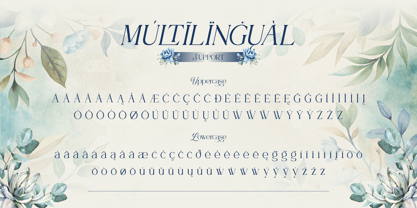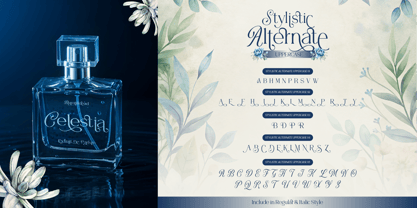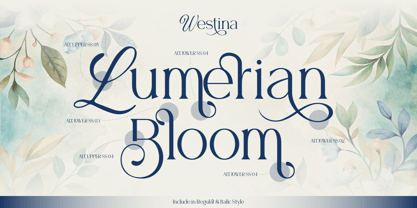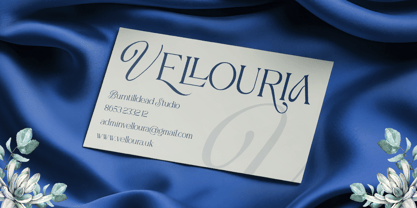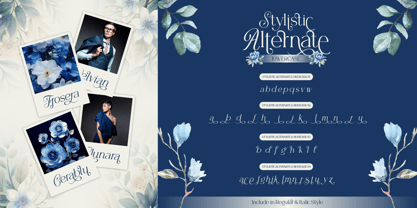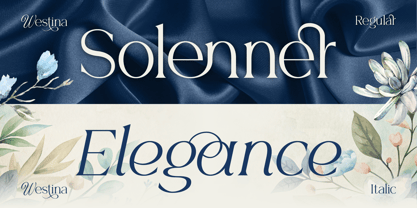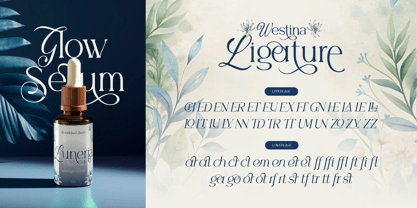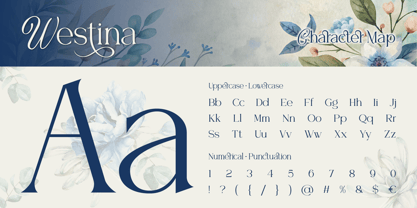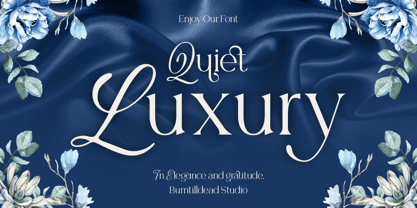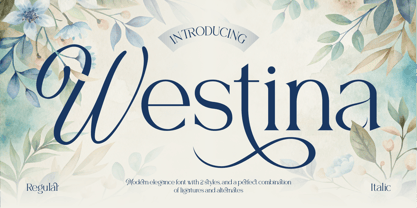
Westina
The Westina Font Family was designed by Eric Kurniawan and published by Burntilldead. Westina contains 2 styles and family package options. More about this family
Introducing Westina, a classy serif font that blends timeless sophistication with a contemporary twist. It comes in two stylish variations:
• Regular: Clean and polished—perfect for a refined, professional look.
• Italic: Flowing and graceful, adding a touch of dynamic movement.
Comes with ligatures and alternates, Westina gives you creative freedom to tailor your designs whether subtle or striking.
Ideal for:
• Luxury branding (fashion, beauty, perfumes)
• Editorial layouts (magazines, blogs, art books)
• Wedding invitations & high-end packaging
• Book covers that leave a lasting impression.
Features:
• A - Z set (Uppercase & Lowercase)
• Number
• Punctuation
• Alternate
• Ligature
• Multilingual